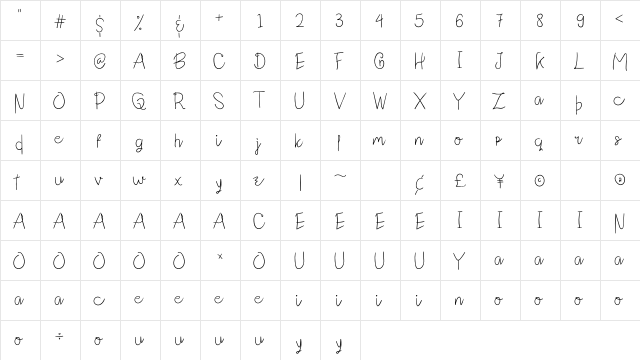
Cute Funnypu Regular
Design Context for Cute Funnypu Typeface
Cute Funnypu has an approachable, lighthearted character — its loose, expressive forms are well-suited to children's content, casual branding, and fun-first design.
Font Pairing: Pairs well with a rounded or humanist sans for body copy, maintaining the friendly tone without relying on Cute Funnypu to carry extended reading.
Pro Tip: Use Cute Funnypu at larger display sizes where its expressive character can land. Pair with a clean, simple sans for body copy to maintain readability.